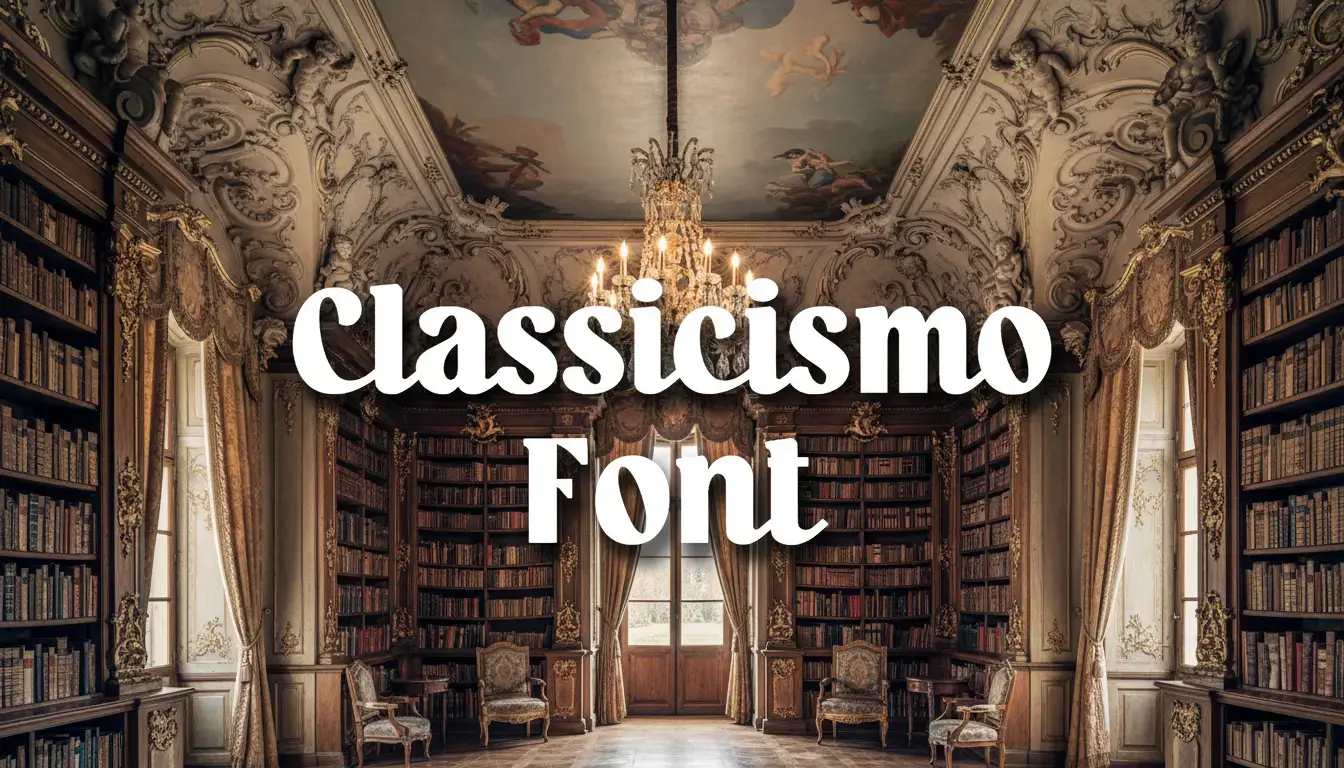
Classicismo Font
Classicismo is a fancy font designed by Wahyu Eka Prasetya, Andhika Pradana. Bold and full of character, it's built to stand out rather than blend in. You can download it for free and test it with your own words in the preview above.
What You Can Type With Classicismo
You get every letter from A to Z in both cases and all the numbers from 0 to 9, which means Classicismo can handle full sentences, dates and prices. Everyday marks like &, !, ? and @ are there too. There are no accented letters like é or ñ, so it's best kept to English text.
Where Classicismo Works Best
Classicismo is a natural fit for posters, logos and eye-catching headlines. Use it for one standout word or headline and let simpler fonts handle the rest.
Does Classicismo support accented letters?
No. Classicismo has no accented letters such as é, ñ or ü, so it's best for English text.